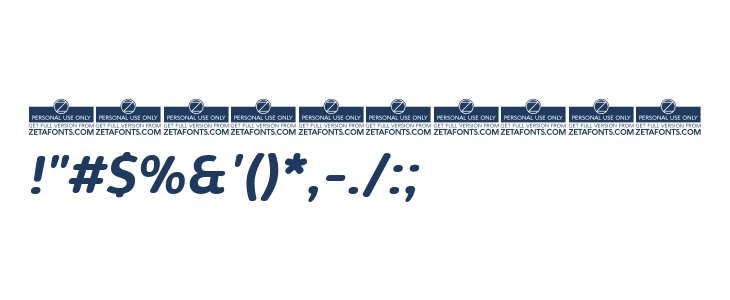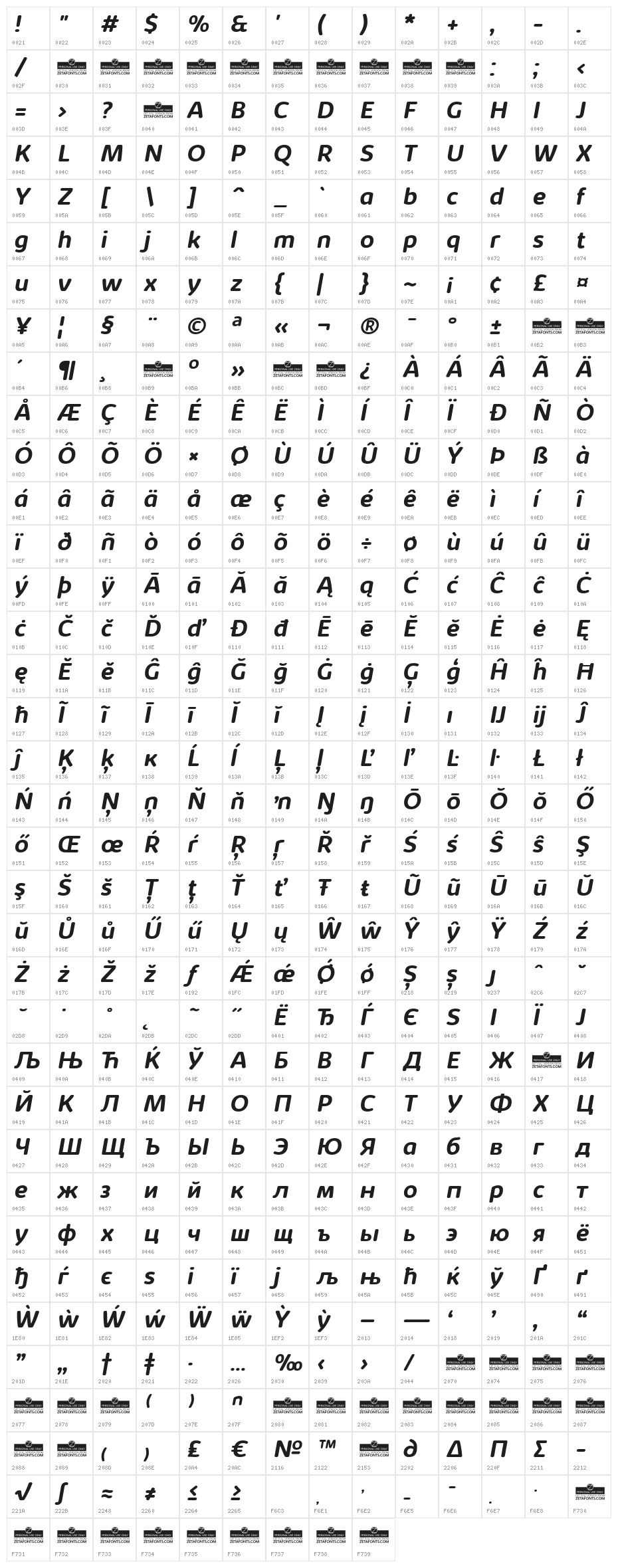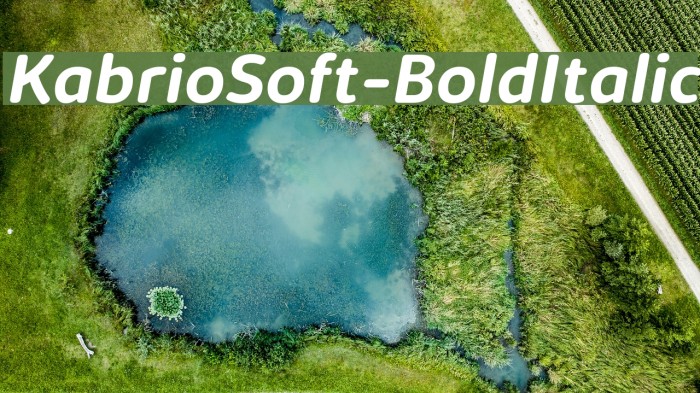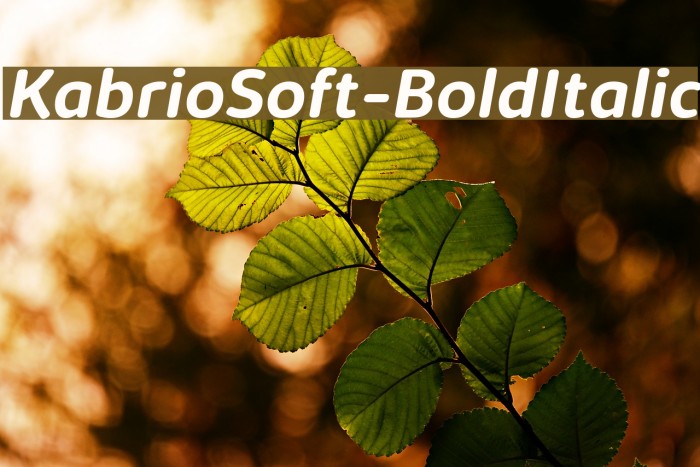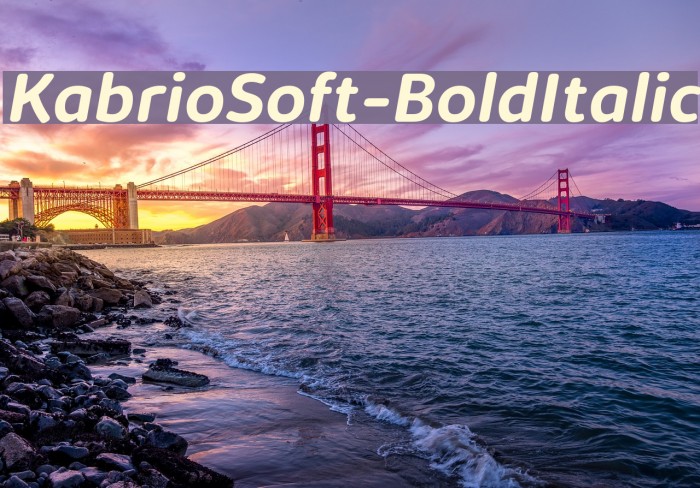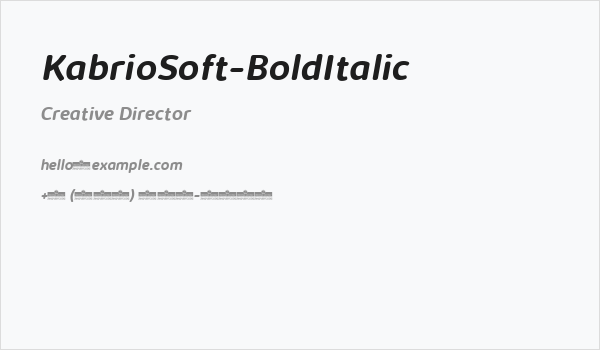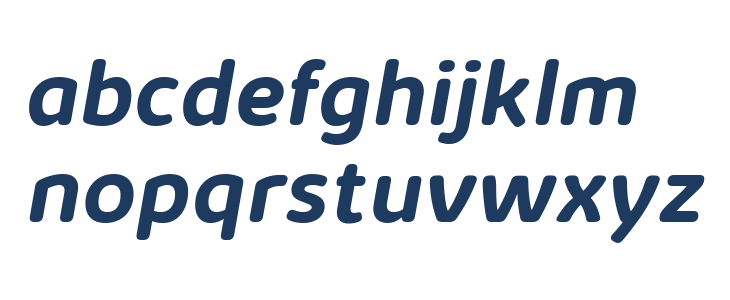
KabrioSoft-BoldItalic Font
KabrioSoft-BoldItalic Description
This font exhibits a bold and italicized style, characterized by smooth, rounded edges and a modern, friendly appearance. The letters are slightly slanted, giving a dynamic and energetic feel. The uppercase and lowercase letters maintain a consistent style, with a uniform stroke width that enhances readability. The numerals and special characters are well-integrated, matching the overall aesthetic. This font is versatile, suitable for both digital and print media, and can effectively convey a contemporary and approachable tone.
| Proposed Projects | Ideal for branding, advertising, packaging, and digital content where a modern and approachable look is desired. |